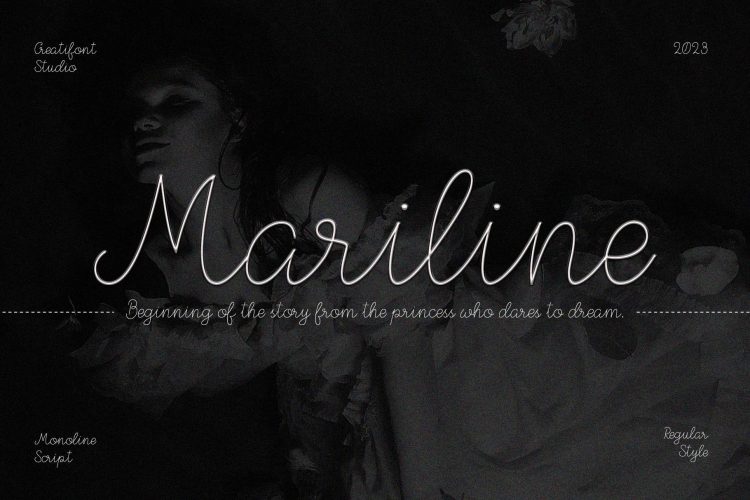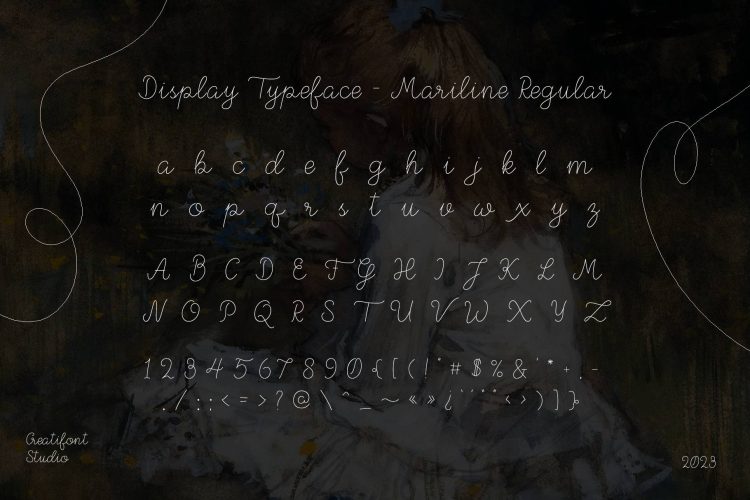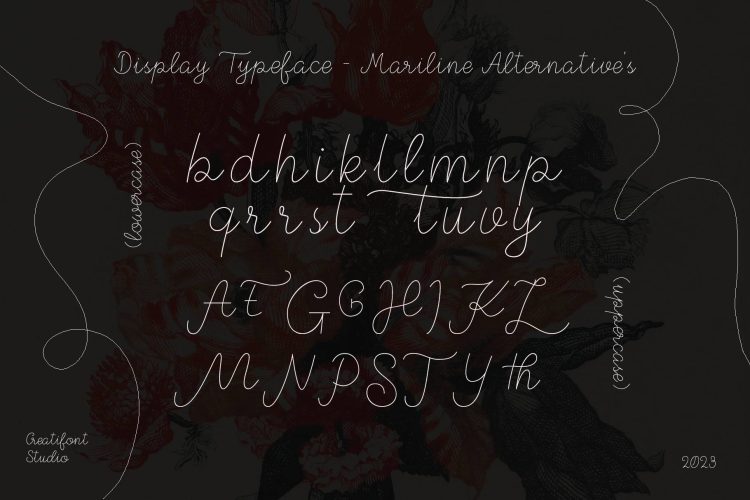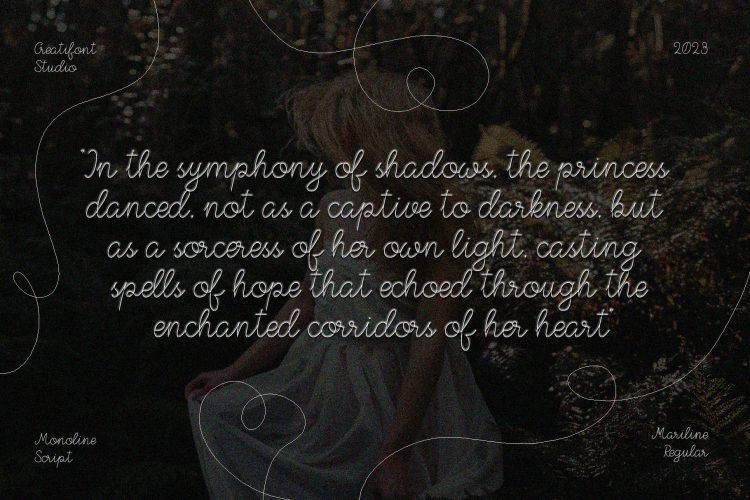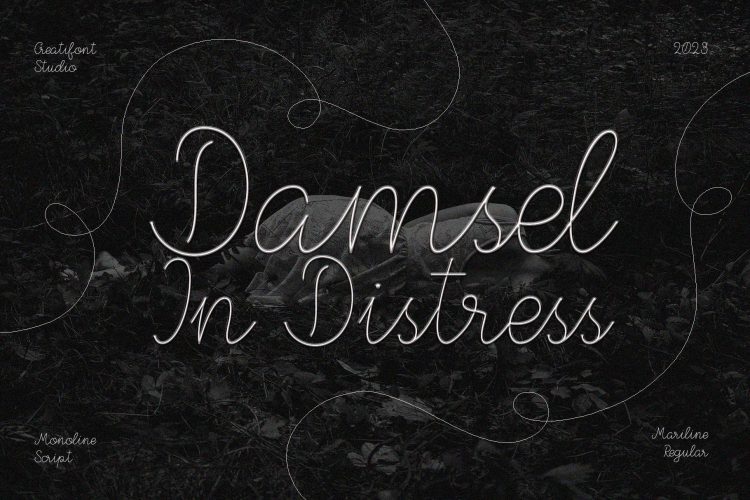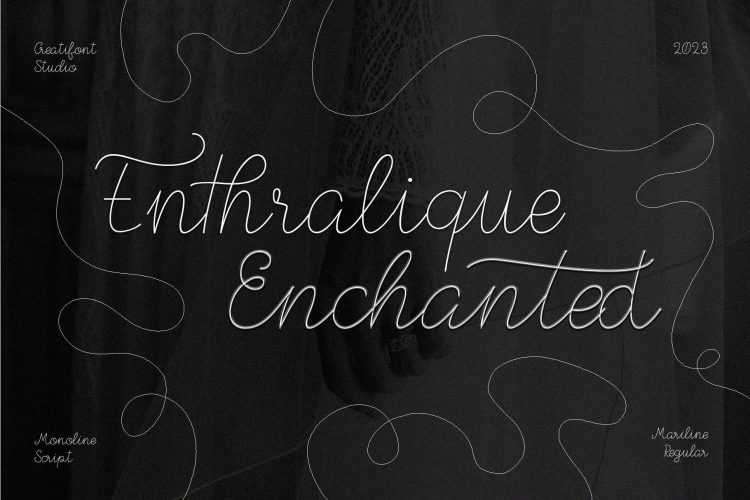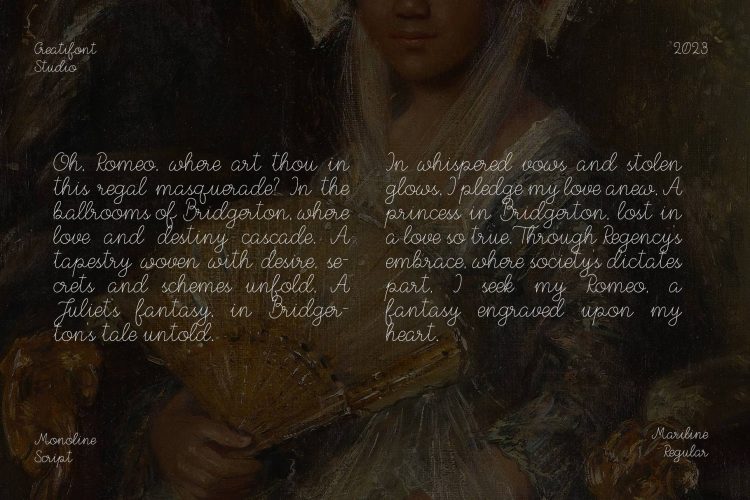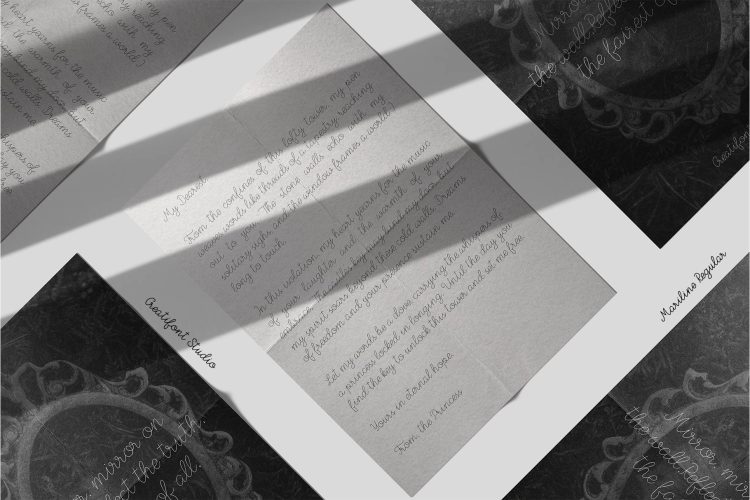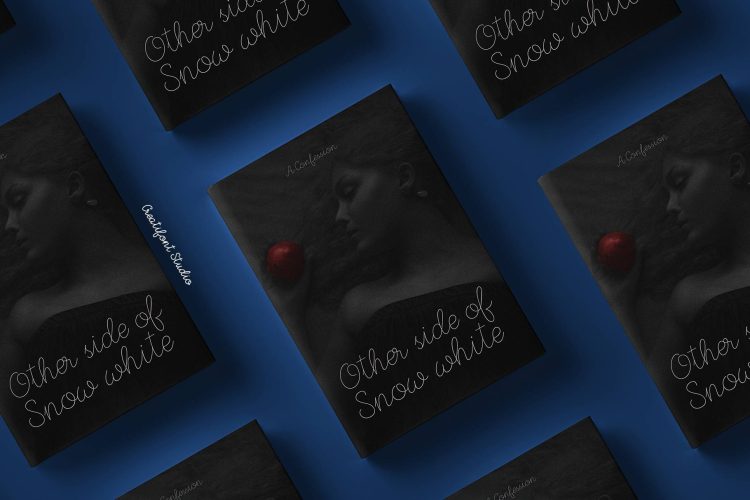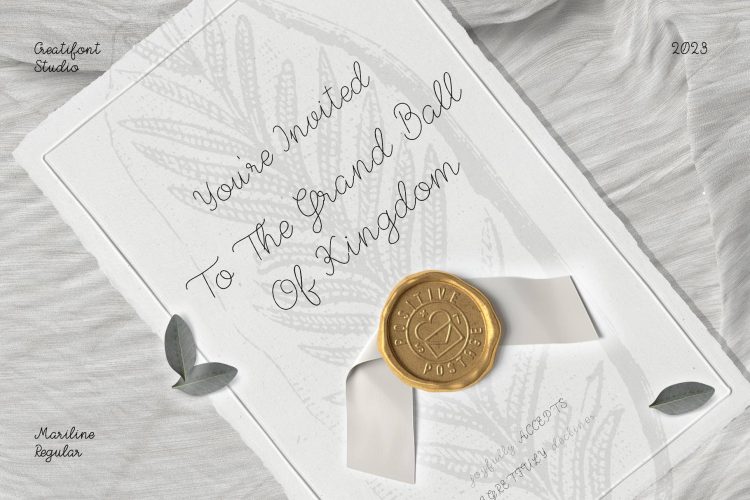
Mariline, a monoline script font, artfully captures the essence of beauty and tranquility. With its seamless and delicate strokes, Mariline epitomizes simplicity and elegance in script typography. This versatile font is designed to bring a sense of calmness and sophistication to any design application. Whether employed in invitations, branding, or other creative projects, Mariline seamlessly adapts, imparting a touch of refined aesthetics. Embrace the graceful charm of Mariline to infuse your designs with a timeless beauty and tranquility that suits a myriad of design purposes.